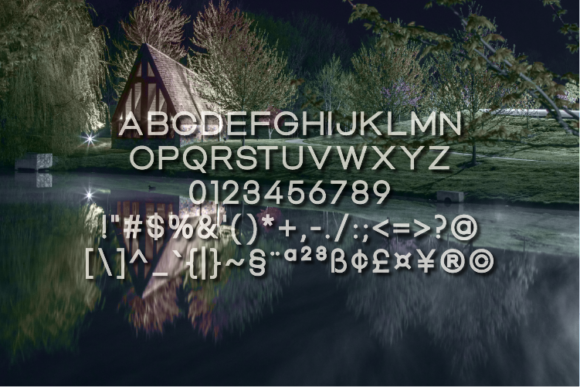
The Eaterose Font: A Modern Sans Serif Game-Changer
I’ll never forget the design struggle I faced while working on a recent project. My client needed a font that was modern, yet elegant; smooth, yet sharp. I scoured the internet, tried countless fonts, but nothing seemed to fit the bill. That was until I stumbled upon the Eaterose font. This modern sans serif font has been a game-changer for me, and I’m excited to share it with you!
A Perfectly Balanced Mix
Eaterose is a modern sans serif font that boasts a perfectly balanced mix of smooth and sharp elements. Its clean lines, elegant curves, and precision-crafted details make it an excellent choice for a wide range of design projects. Whether you’re a designer, crafter, or creative hobbyist, Eaterose is sure to complement your design needs perfectly.
- ✨ Versatility: Eaterose can be used for a variety of design projects, from branding and advertising to packaging and digital media.
- ✅ Legibility: The font’s clear and concise design makes it easy to read, even at small sizes.
- 💡 Creativity: Eaterose’s modern design and range of OpenType features make it an excellent choice for creative projects.
While Eaterose is an excellent font, there are a few minor quirks to be aware of:
- 🤔 Limited language support: Eaterose currently supports a limited number of languages. If you need to design for a specific language, be sure to check the font’s capabilities.
- ⚠️ Glyph limitations: Some users have reported limitations with certain glyphs. However, these can often be overcome by using OpenType features or stylistic alternates.
The Backstory Behind Eaterose
Eaterose was designed by a team of typographers who sought to create a modern sans serif font that was both elegant and versatile. Inspired by the urban landscape and modern design trends, Eaterose was crafted to meet the needs of designers and creatives who require a high-quality font for their projects.
Q: What is the Eaterose font?
A: Eaterose is a modern sans serif font designed for a wide range of design projects.
Q: What are the key features of Eaterose?
A: Eaterose boasts a range of OpenType features, including stylistic alternates, ligatures, and glyphs.
Q: Is Eaterose suitable for digital use?
A: Yes, Eaterose is optimized for digital use and can be used for a variety of digital projects, including web design, social media graphics, and more.